Step back in time with our collection of the 15 best medieval fonts available on Canva that are perfect for giving your designs a timeless and classic look. Each font in this list has been carefully selected to ensure your projects not only stand out but also carry the authenticity and charm of medieval times. These fonts feature characteristics typical of medieval script, such as gothic and black letter styles, which are perfect for adding a historical or dramatic touch to your projects. Each of these fonts brings its unique flavor to the medieval theme, allowing for versatile design applications while maintaining an anchor in historical style.
1. Blaka
Why it is best Medieval font: Blaka is a bold and dynamic font that mimics the strokes of traditional calligraphy pens. Its heavy, dramatic lines make it ideal for headlines and titles where a strong medieval presence is desired, adding a powerful historical narrative to any design.
2. Bree Serif
Why it is best Medieval font: Bree Serif combines contemporary readability with a touch of old-world charm. This serif font features rounded details that soften its appearance, making it versatile for both modern and historical-themed projects.
3. Callem
Why it is best Medieval font: Callem’s elegant calligraphic strokes echo the hand-written manuscripts of medieval times. Its fluid, ornate characters are perfect for invitations, diplomas, or any project that requires a sophisticated and historical look.
4. Engravers Old English
Why it is best Medieval font: This font is a classic example of the blackletter styles used in medieval Europe. Its sharp, intricate letterforms are perfect for replicating the look of ancient texts and lend an air of formality and tradition to any layout.
5. Goudy
Why it is best Medieval font: Inspired by the designs of Frederic Goudy, this font carries a strong medieval influence with its robust weight and distinctive serifs. It’s great for achieving a look that feels both archaic and authoritative.
6. Grenze
Why it is best Medieval font: Grenze blends Gothic architecture and modern design elements, making it unique and highly readable. Its slightly condensed appearance helps maintain legibility while adding a medieval aesthetic to any content.
7. Just Write
Why it is best Medieval font: Just Write has a handcrafted feel that recalls the era of hand-written medieval scripts but with a cleaner, more modern finish. It’s ideal for personal messages, historical quotes, or any project that needs a personal, hand-touched feel.
8. Lancelot
Why it is best Medieval font: Named after the legendary knight, Lancelot is as regal as its namesake with elegant curves and sharp serifs that suggest the sophistication and romance of the Arthurian era, perfect for storytelling or thematic decorations.
9. London
Why it is best Medieval font: London’s Victorian influences make it a standout choice for projects that aim for a historical but distinctly British medieval feel. Its bold structure and embellished serifs provide a strong anchor for any design.
10. Majesty
Why it is best Medieval font: Majesty is all about grandeur and opulence, mirroring the ornamental inscriptions of medieval royalty. This font is excellent for headings and titles where a majestic, ceremonial feel is required.
11. Obra Letra
Why it is best Medieval font: With a nod to ancient calligraphy, Obra Letra features uneven, textured strokes that look as though they were painted with a brush. This font is perfect for designs that need a bit of rustic, historical authenticity.
12. Rumble Brave Script
Why it is best Medieval font: This decorative script combines Victorian and medieval elements, resulting in a lavish, ornate style perfect for luxurious and dramatic designs.
13. Sloop Script Pro
Why it is best Medieval font: Sloop Script Pro offers a lighter, more whimsical take on medieval handwriting. Its smooth curves and fine lines make it suitable for elegant, high-end projects that require a touch of antiquity.
14. Ultra
Why it is best Medieval font: Ultra is a heavy slab serif that feels both ancient and modern. It’s perfect for impactful headlines that need to convey strength and stability, reminiscent of stone inscriptions.
15. UnifrakturMaguntia
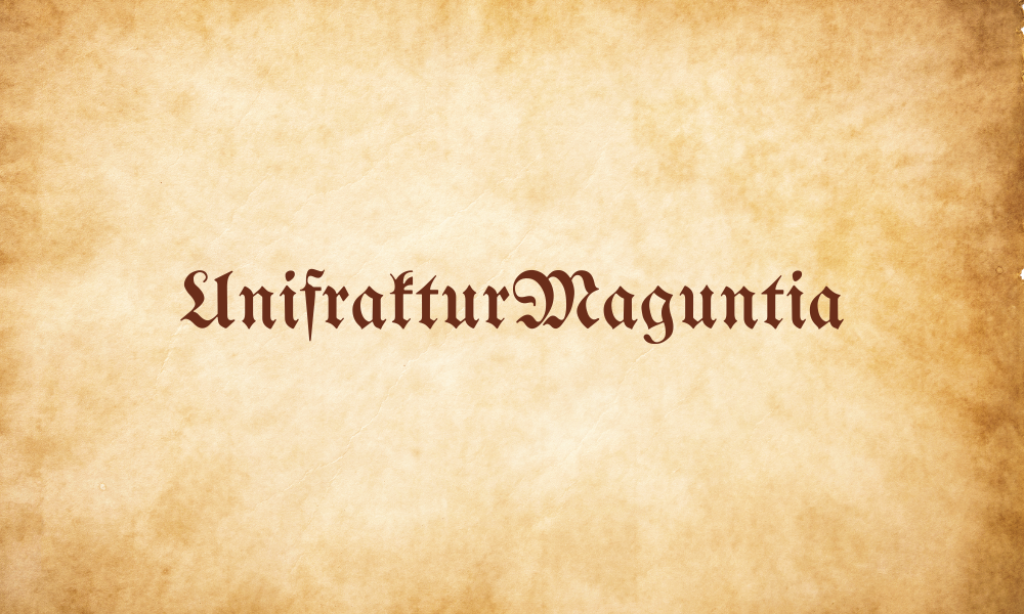
Why it is best Medieval font: This font revives the tradition of the Fraktur typefaces which were prevalent in manuscripts and books throughout the medieval period. It’s great for projects that require a distinctly traditional Germanic aesthetic.